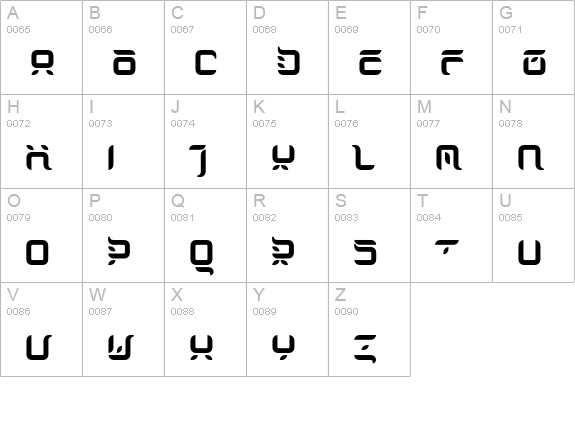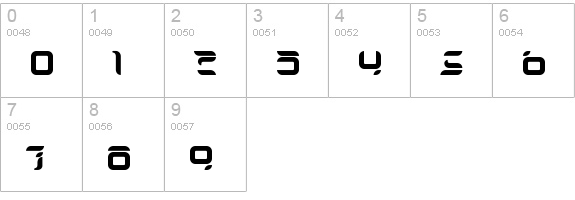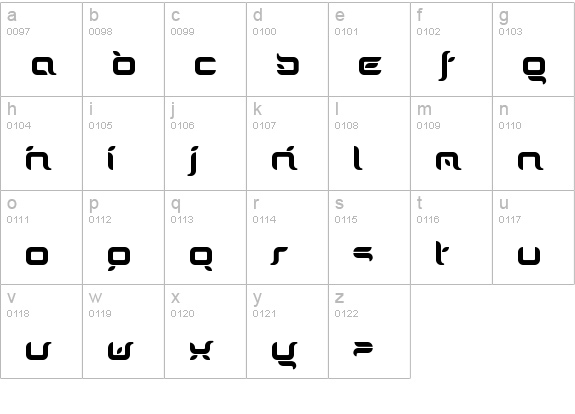
DorisOrange-Regular is the standard, neutral variant in the DorisOrange typeface family \xE2\x80\x94 well suited to general body text, paragraphs, and standard typographic work.
DorisOrange-Regular is a charming and stylish font that exudes a sense of playfulness and creativity. Its rounded edges give it a friendly and approachable appearance, making it perfect for a wide range of design projects. This versatile font is suitable for both headings and body text, adding a touch of personality to any design. What's even better is that DorisOrange-Regular is completely free to download at FontsMarket.com. This means you can easily access this delightful font and use it in your projects without any cost. Whether you're working on a poster, logo, website, or any other design, DorisOrange-Regular is sure to bring a pop of personality and flair. Download it today and elevate your designs with this fantastic free font!